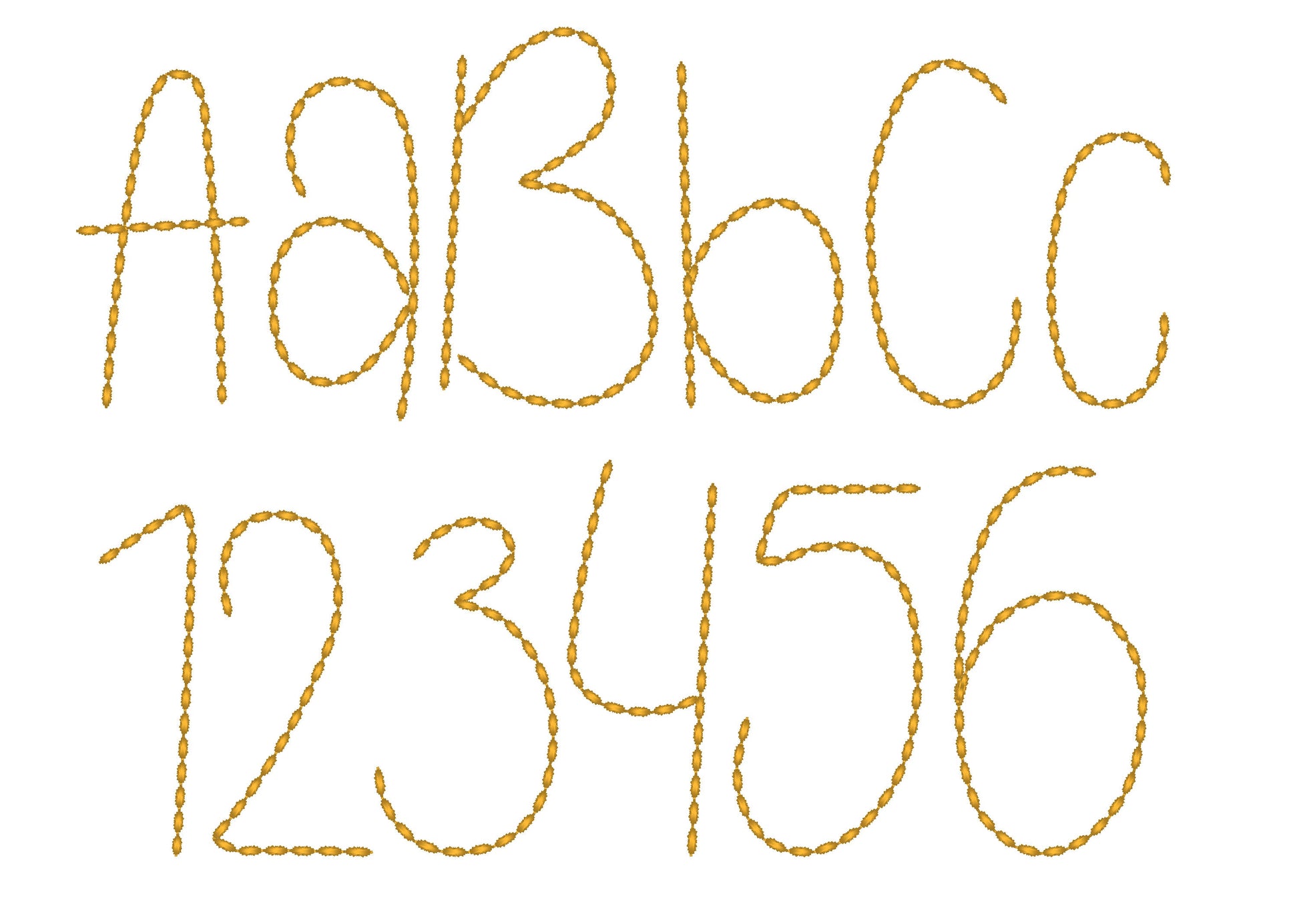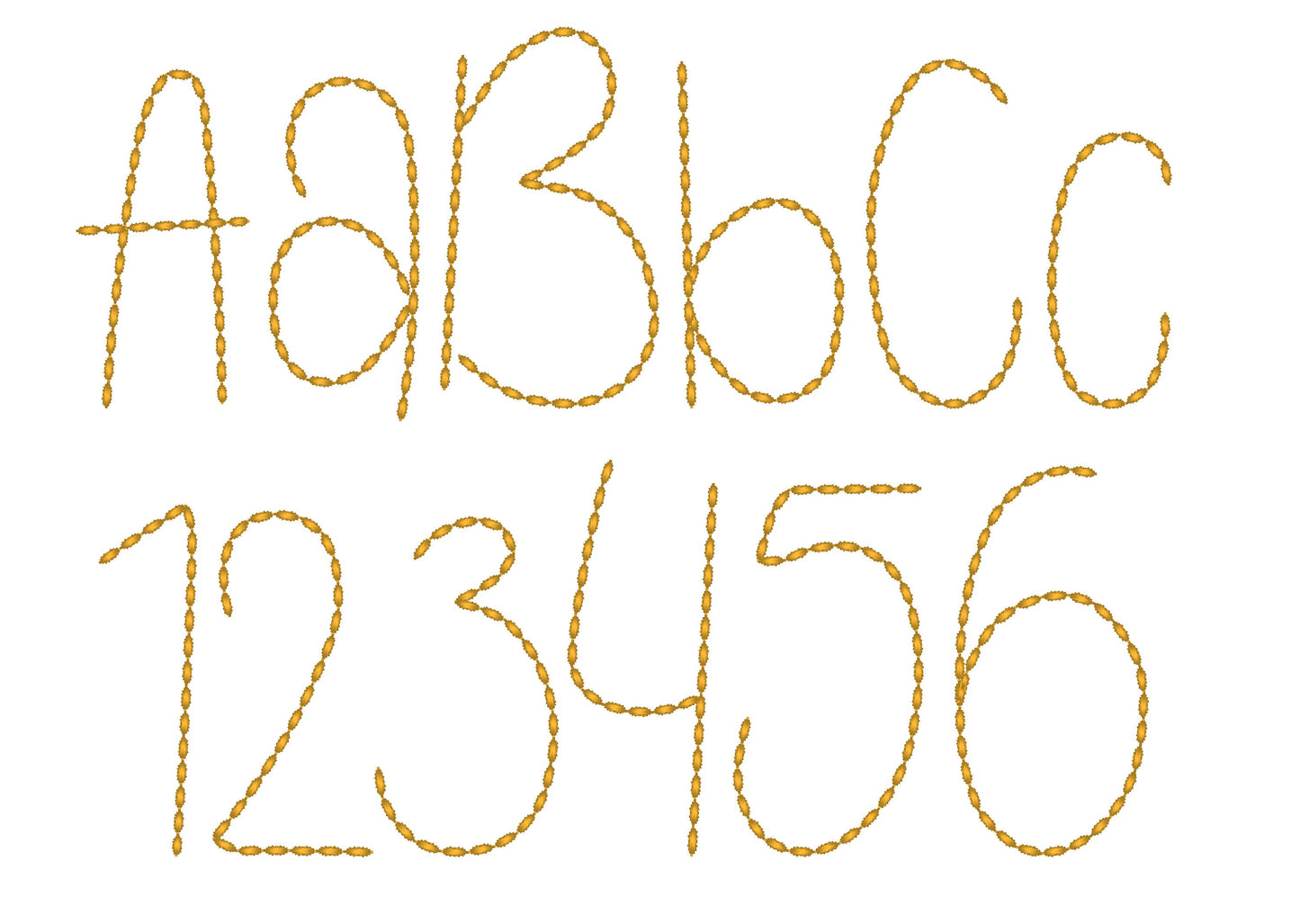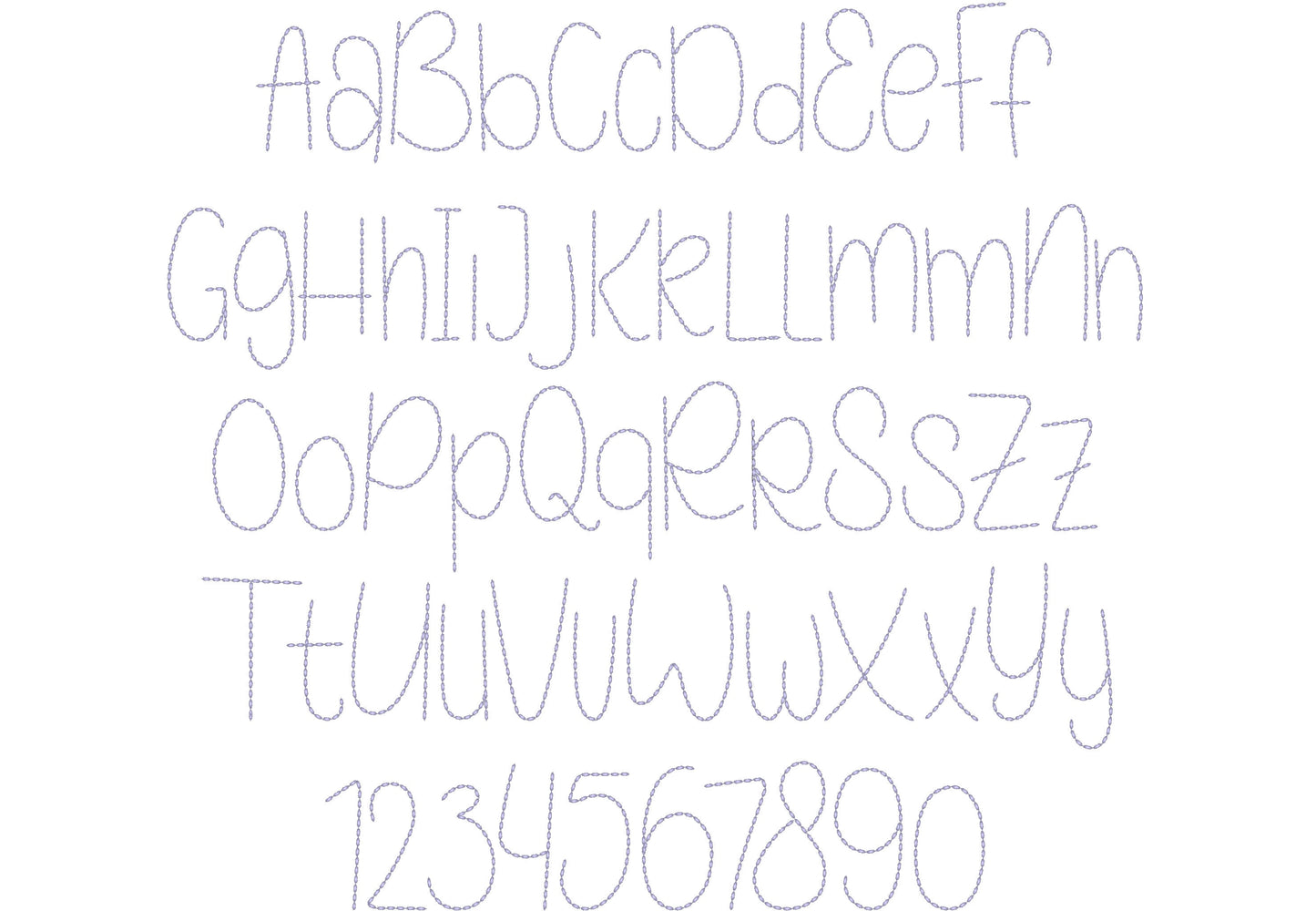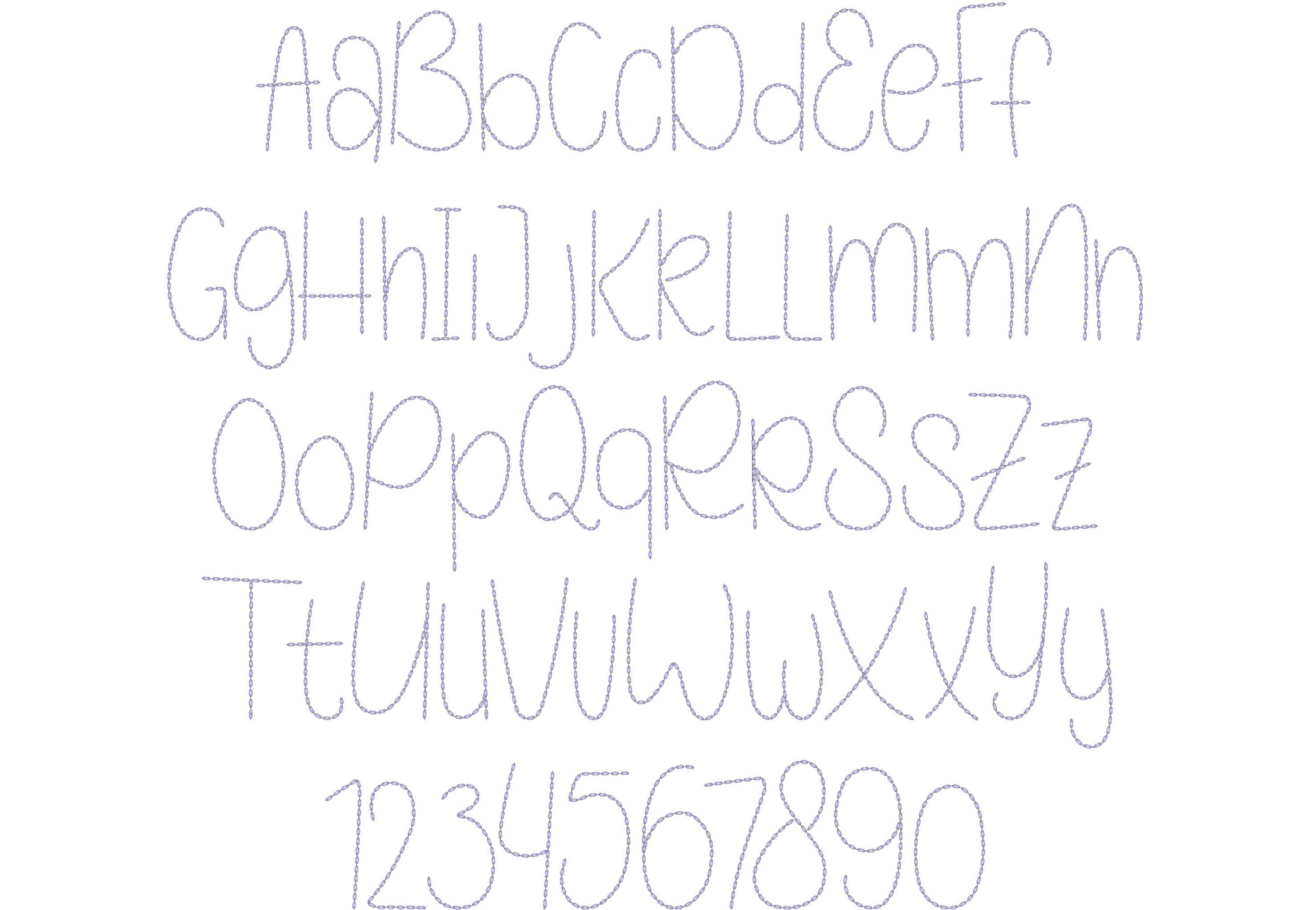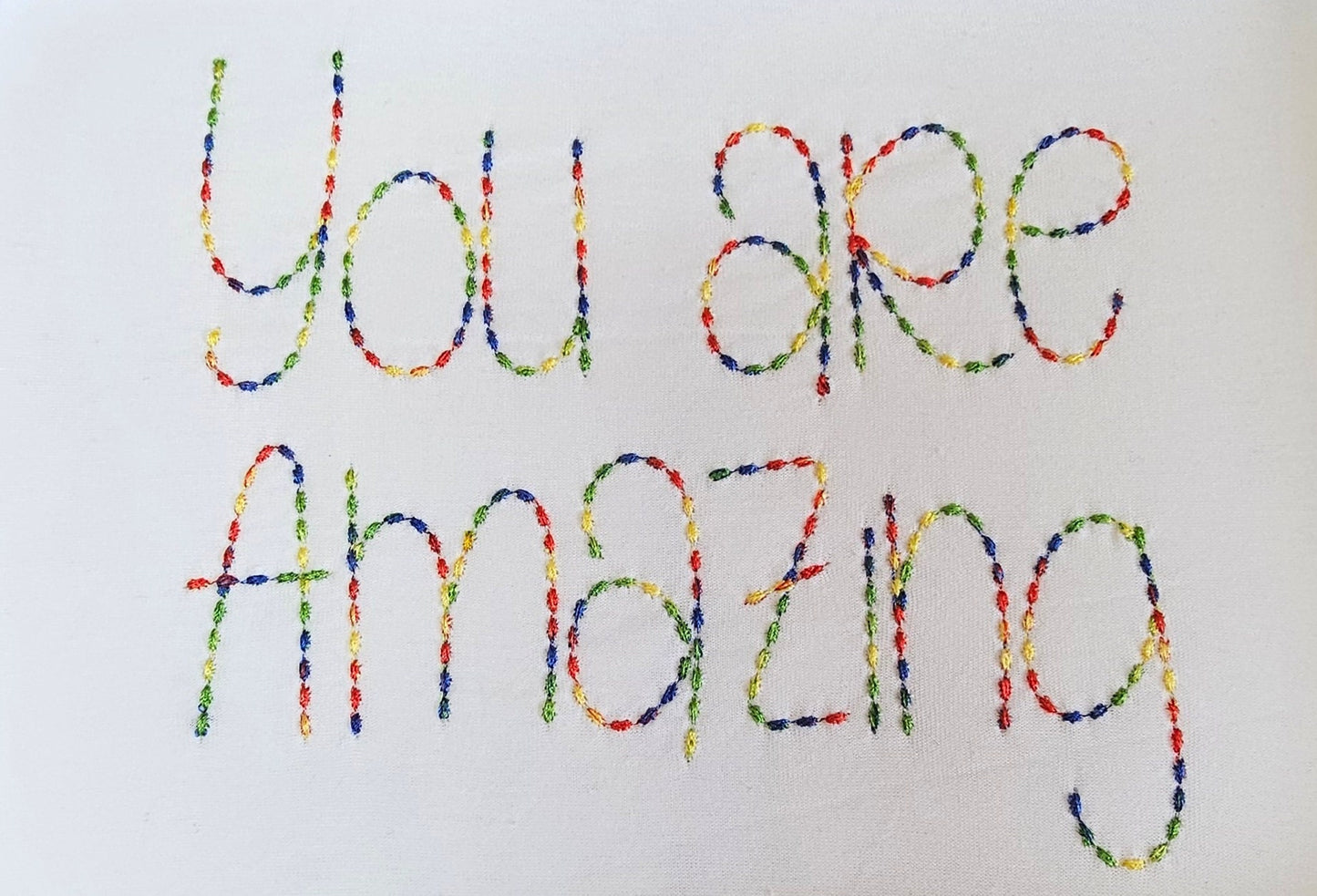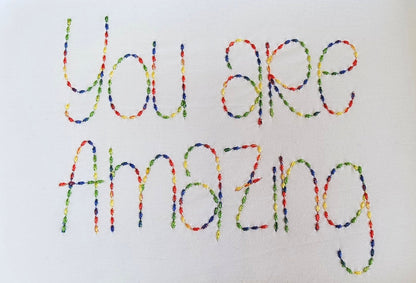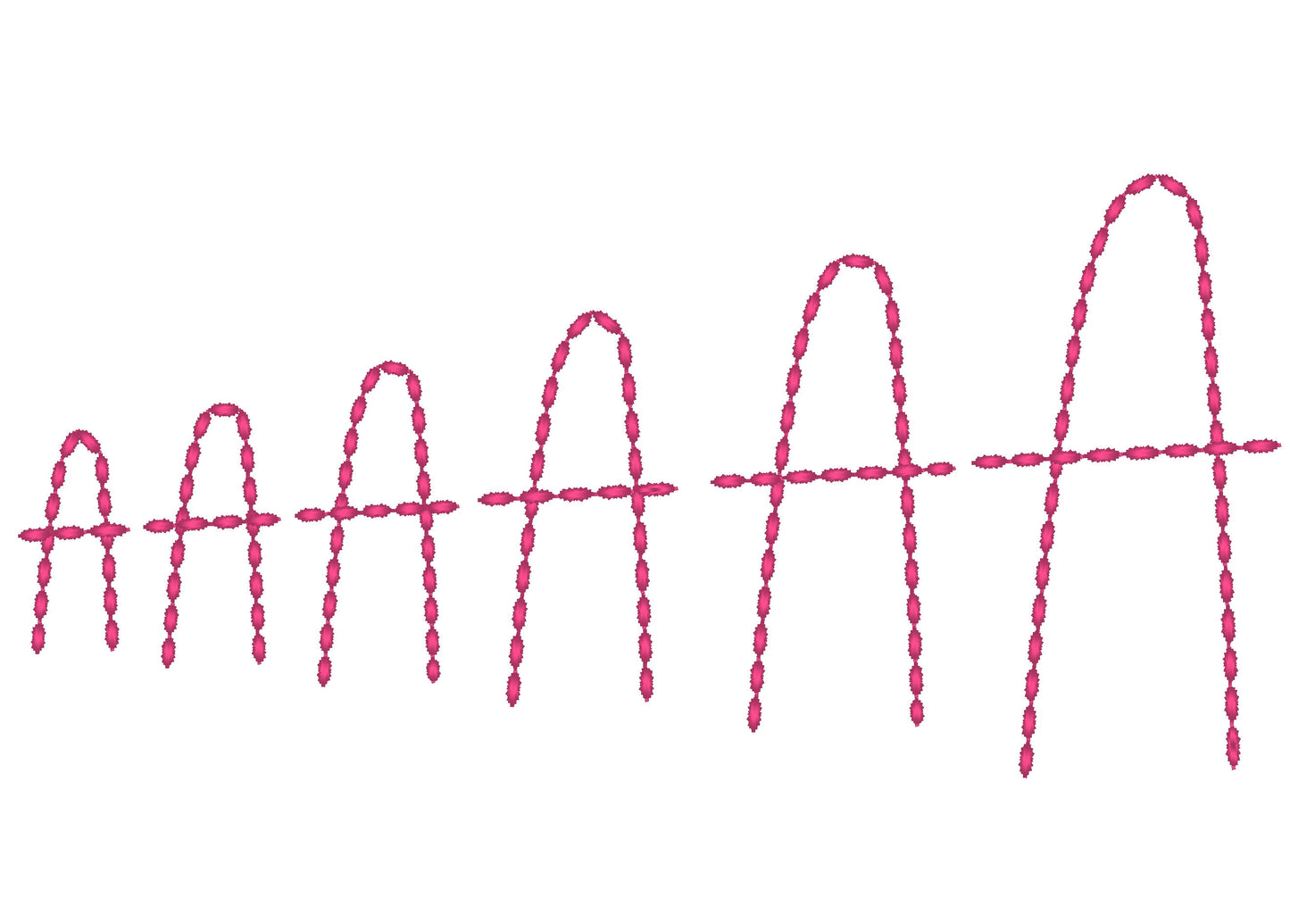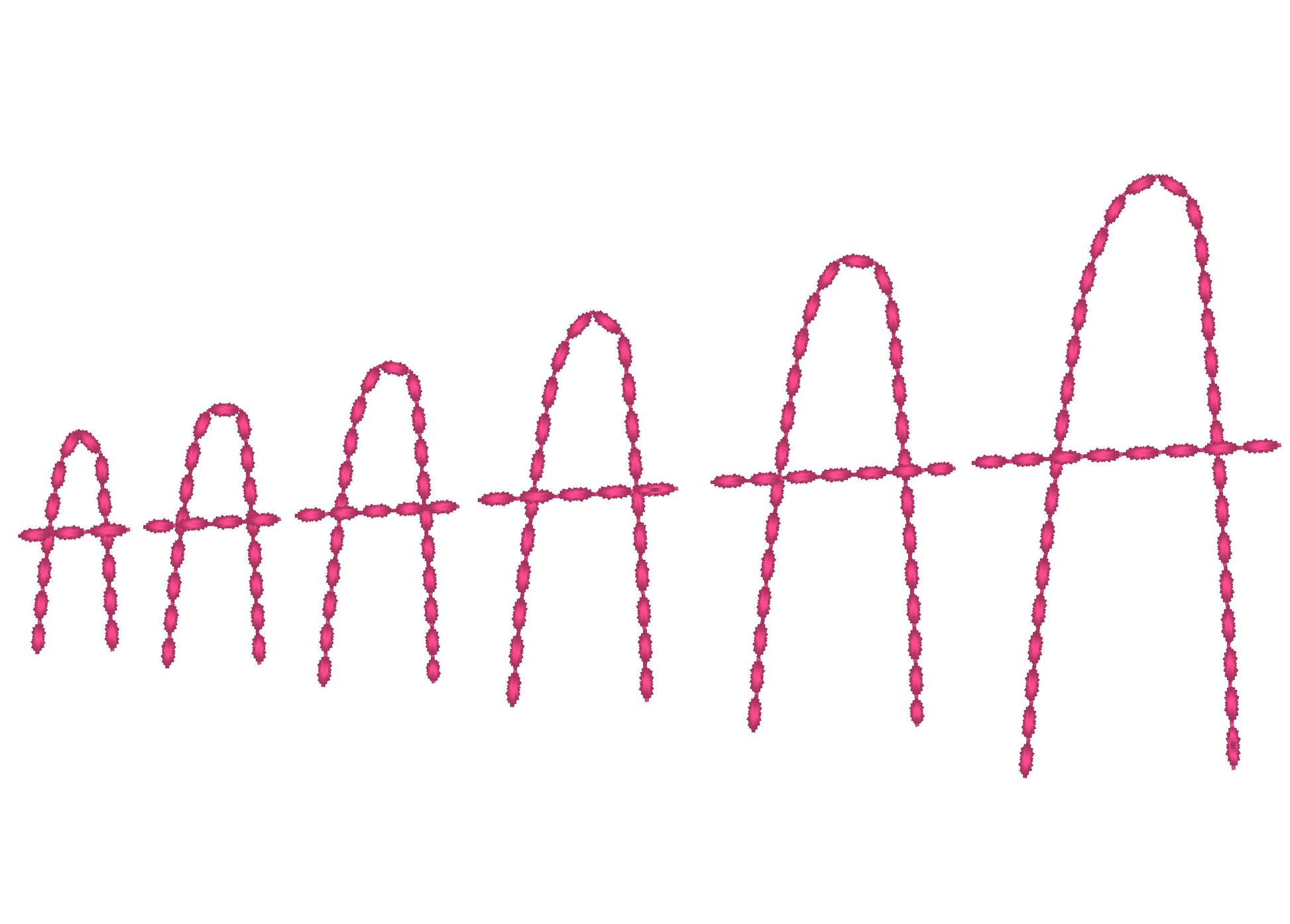
Or click to open the linkA hand stitch effect font in seed stitch, for kids' names and monograms along necklines, pockets and pillows.
A one-color font; the sample photos are stitched with variegated thread. Uppercase and lowercase letters and numbers 0 to 9 in six sizes: 1.2, 1.4, 1.7, 2, 2.5 and 3.2 inches.